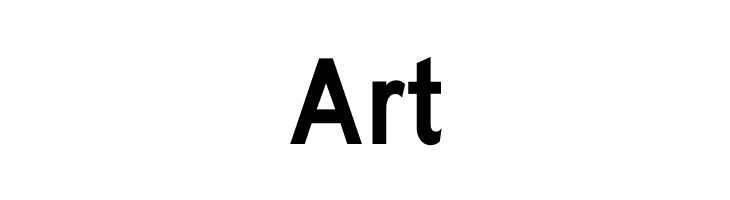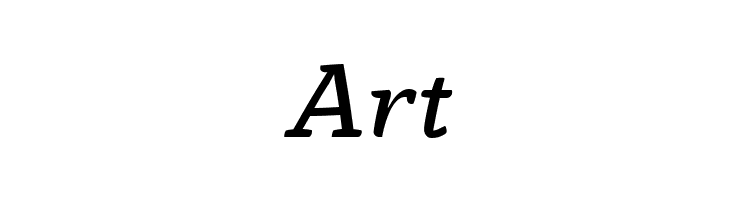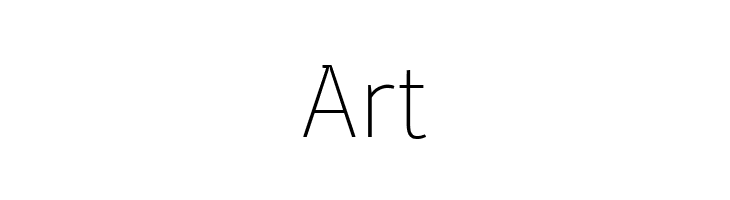
( Vladimir Fedotov )
A modern, rounded sans-serif font with smooth curves and a clean appearance.
( Volker Busse - F25 Digital Typeface Design - Volker Busse - www.grafikkontor-mitte.de )
A bold, monospaced font with uniform strokes and clear readability.
( Zetafonts - www.zetafonts.com )
A classic italic font with smooth curves and moderate contrast, offering elegance and readability.
( Zetafonts - www.zetafonts.com )
A refined serif font with high contrast and elegant, elongated strokes.
( Zetafonts - www.zetafonts.com )
A modern, clean sans-serif font with geometric uniformity and excellent readability.
( Zetafonts - www.zetafonts.com )
A sleek, modern font with thin, uniform strokes and excellent readability.
( Zetafonts - www.zetafonts.com )
A modern, rounded sans-serif font with a clean and approachable style.
( Zetafonts - www.zetafonts.com )
A clean, modern sans-serif font with a light weight and excellent readability.
( Zetafonts - www.zetafonts.com )
A bold, modern typeface with clean lines and excellent readability.